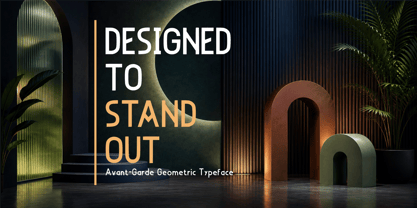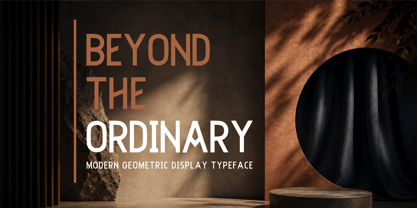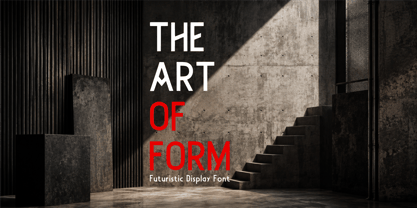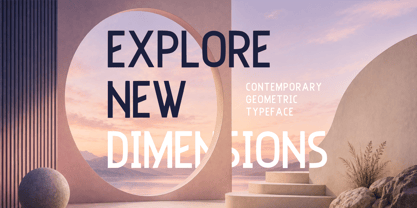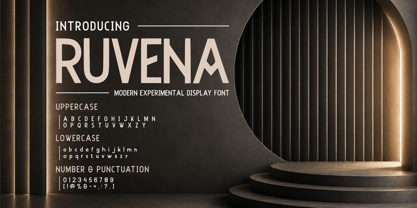
Ruvena Normal
by Arif Novianto
The Ruvena Normal Font Family was designed by Arif Novianto and published by Arif Novianto. Ruvena Normal contains 2 styles and family package options. More about this family
RUVENA — Modern Experimental Display Font
RUVENA is a bold and distinctive modern experimental display font designed to bring a strong architectural character to contemporary typography. Featuring unconventional letterforms, sharp geometric details, and subtle futuristic influences, RUVENA creates a unique visual identity that feels both refined and expressive.
Its clean yet experimental construction makes it especially effective for fashion branding, luxury identities, editorial layouts, posters, magazine covers, packaging, logos, headlines, and creative advertising. The striking proportions and unusual details allow RUVENA to command attention while maintaining a sophisticated and minimalist appearance.
RUVENA is ideal for designers looking to create typography that feels modern, artistic, architectural, futuristic, and memorable.
RUVENA — Modern Experimental Display Font
Bold forms. Refined geometry. Experimental character.